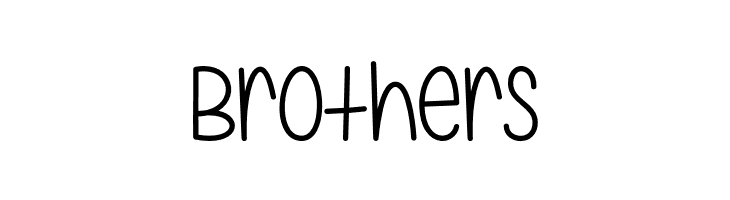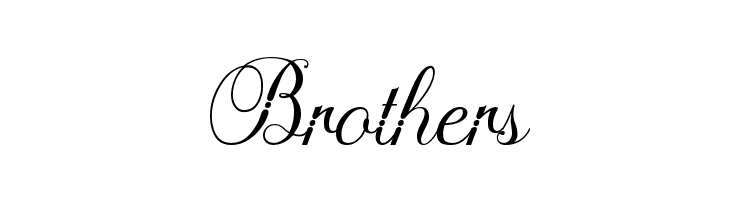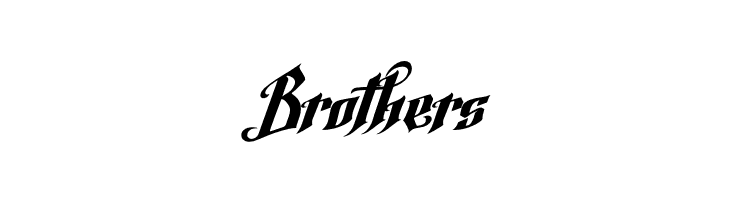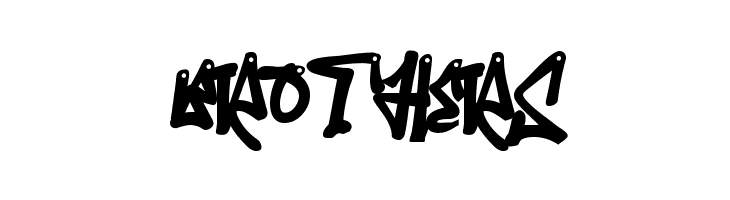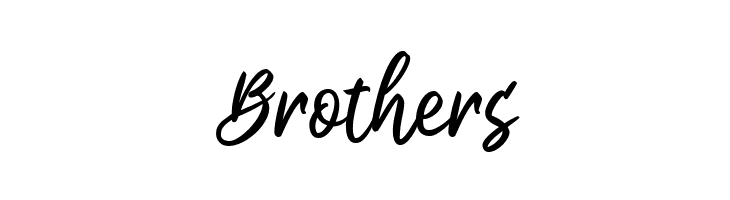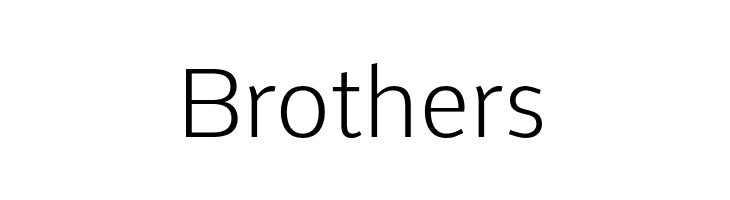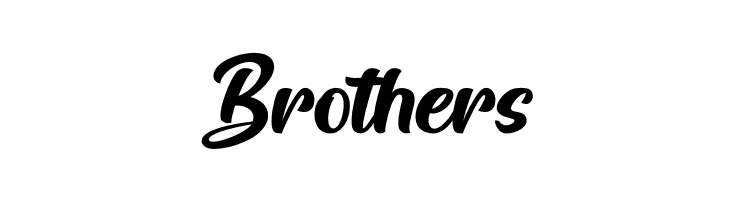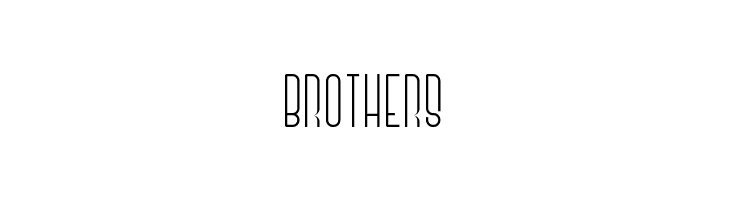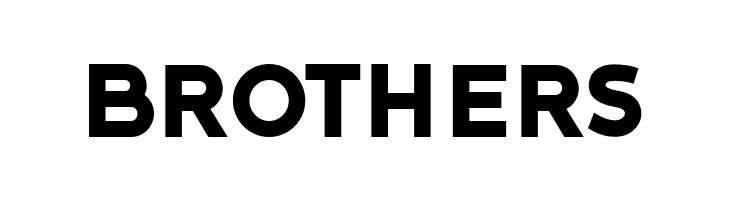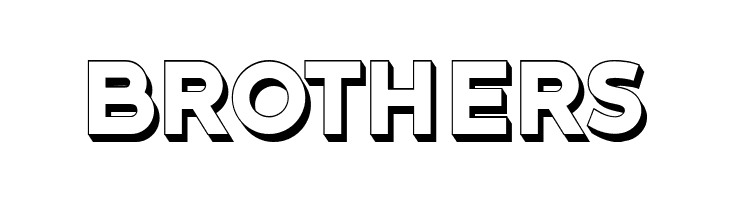
• Aref Ruqaa Regular
An elegant serif font with a blend of traditional and modern elements.
• AreHalfsEnough
A modern, geometric font with a unique cut-off style and consistent stroke width.
• Arek Is So Grungey
A rugged, distressed font with a grunge-inspired, chaotic style.
• Arellia
An elegant script font with flowing, ornate swashes and a romantic style.
• Arellion
An ornate script font with intricate swirls and flourishes, exuding elegance and sophistication.
• Aremoin Regular
A cursive, handwritten-style font with elegant, flowing characters.
• Arena 3D Regular
A bold, 3D font with geometric shapes and shadow effects for a modern look.
• Arena Graffiti
A bold, graffiti-inspired font with dynamic, expressive strokes.
• Arena Graffiti
A bold, graffiti-style font with dynamic, expressive strokes.
• Arena Regular
A bold, geometric font with clean lines and a modern aesthetic.
• Arenosa Regular
A bold, decorative font with intricate details and high contrast.
• Arenq
A modern, geometric font with clean lines and a minimalist design.
• Arenq
• ArensdorffInk-Regular
A playful, hand-drawn font with an ink-splattered, grungy style.
• Arenski
• Arenski Regular
• Arenzi
• AREO Regular
• arepas y queso
• Ares Modernos Regular
• Areson
An ornate and decorative font with elaborate swirls and flourishes.
• Areson
An ornate and decorative font with elaborate swirls and flourishes.
• Aretha-Light
A modern, light sans-serif font with clean lines and excellent readability.
• AreYouFreakinSerious
A playful, hand-drawn font with rounded, whimsical characters.